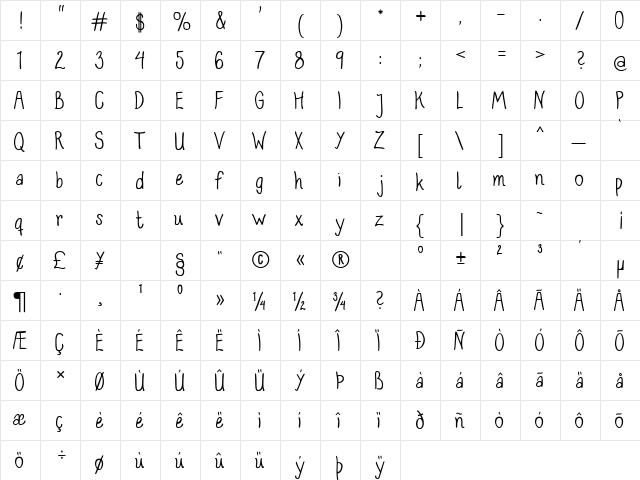
Junaesvik Regular
| Foundry | Yves MICHEL |
| Designer | Yves MICHEL |
Design Context for Junaesvik Typeface
Junaesvik is a composed and adaptable typeface that performs quietly and consistently across a wide range of design contexts.